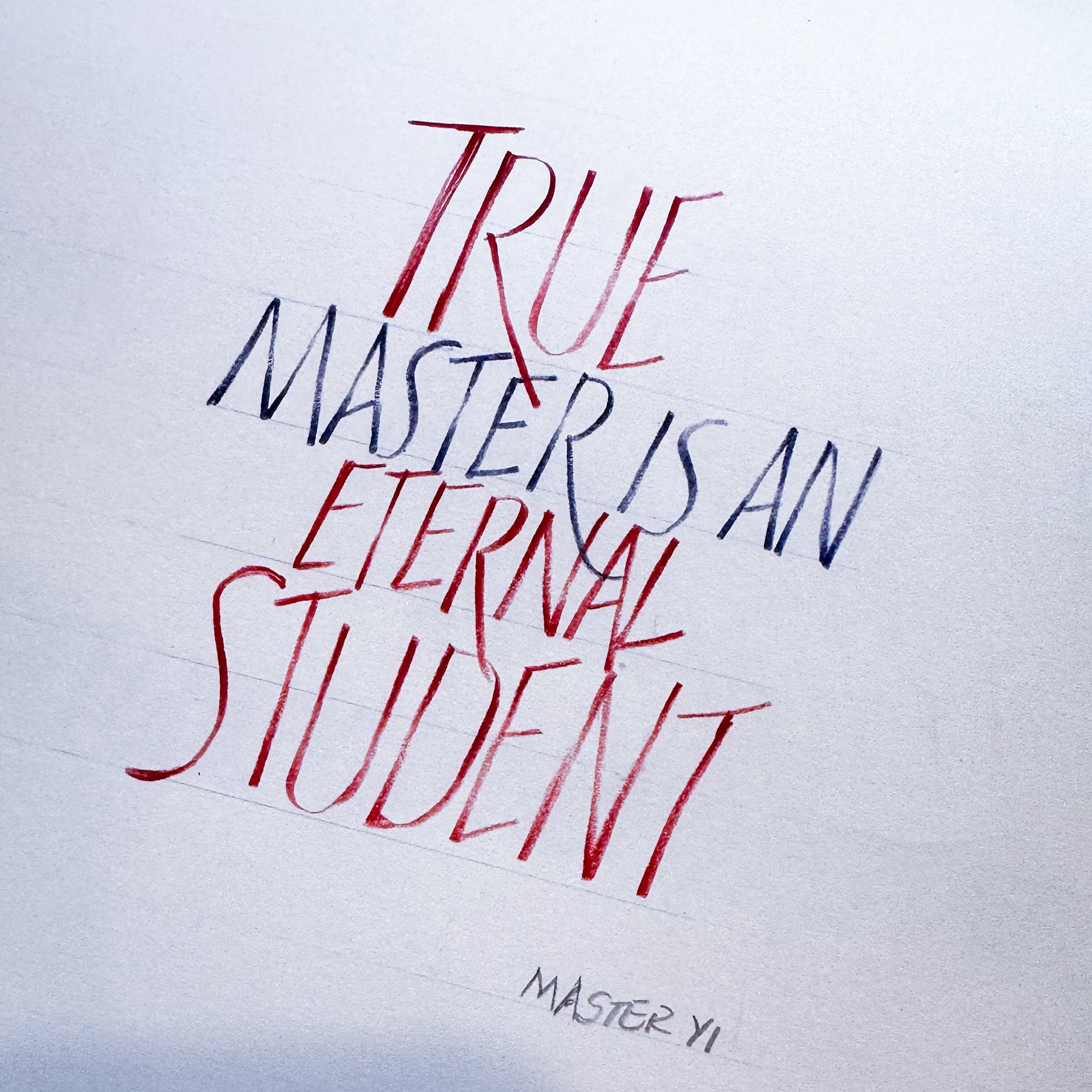
Colorful Capitals with Sharon Zeugin - October, 2024
Based on the Roman capital forms using colored pencils on black paper, students explored a variety of techniques including press and release for stroke variation, blending colors and simple composition.